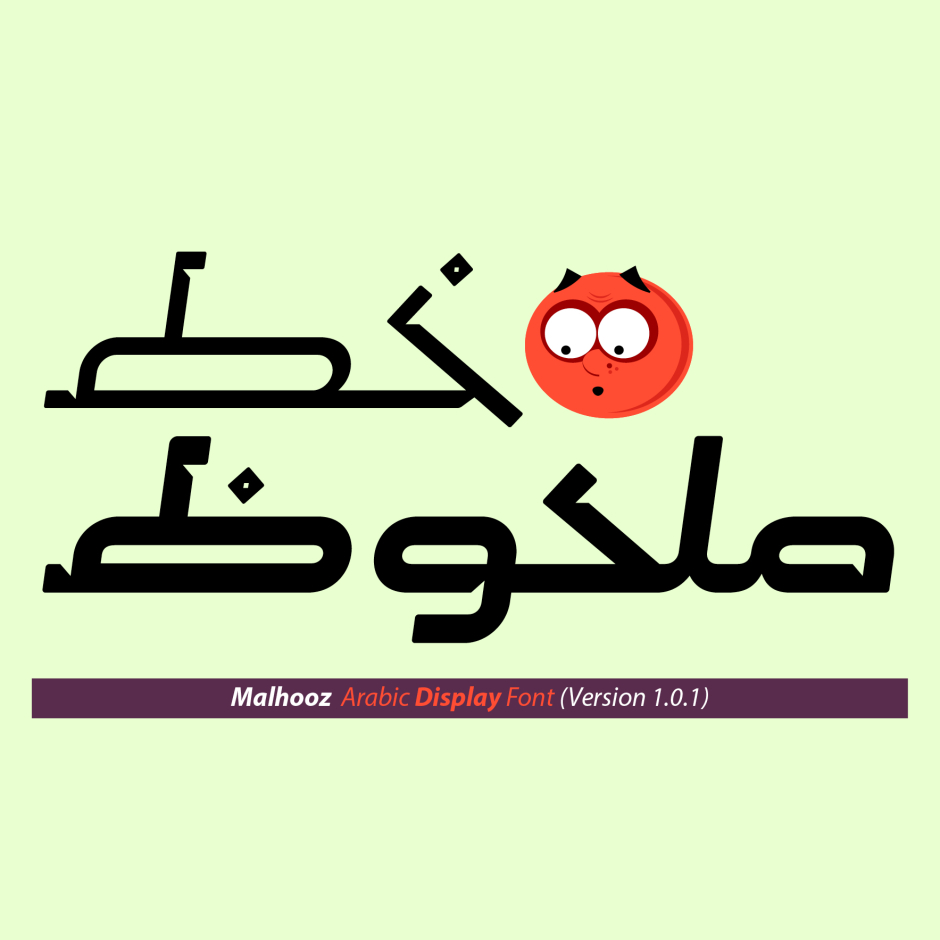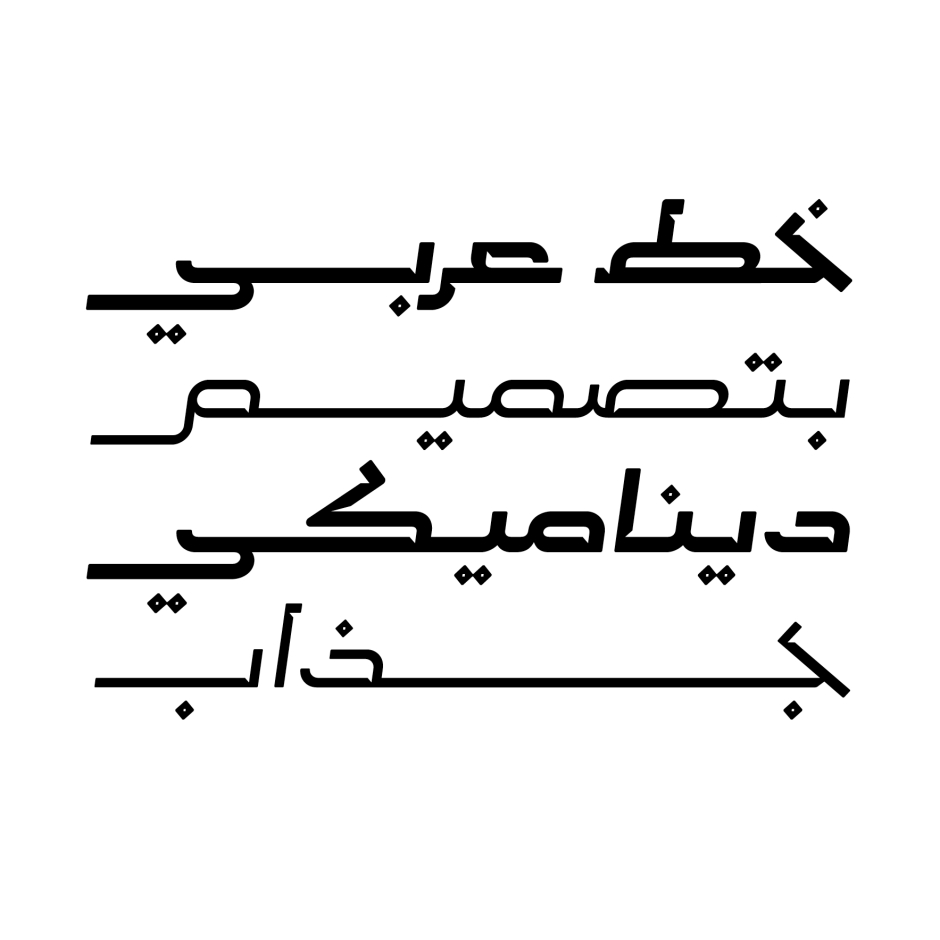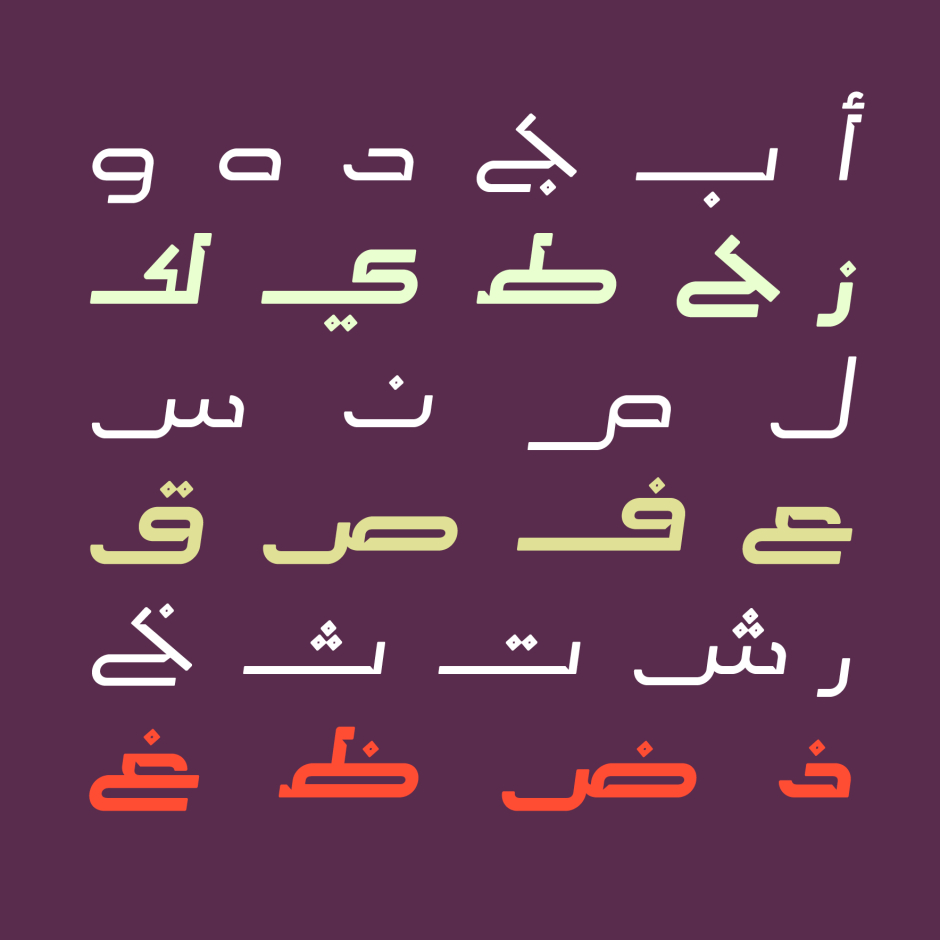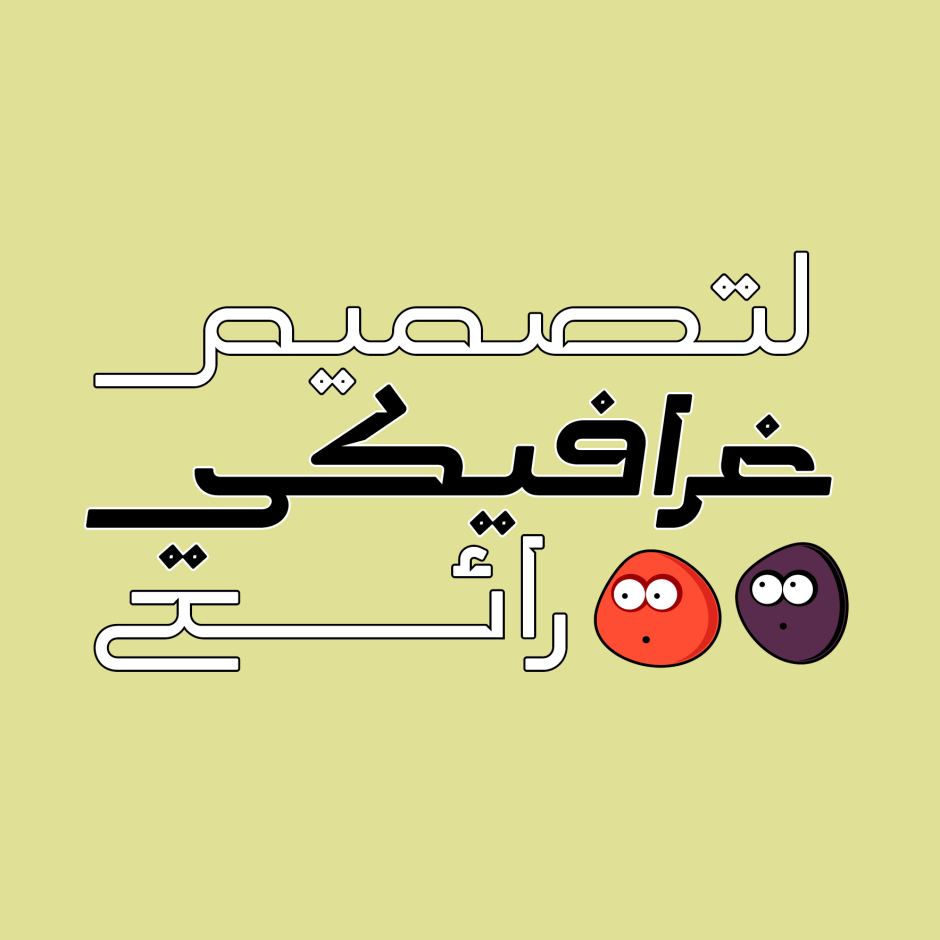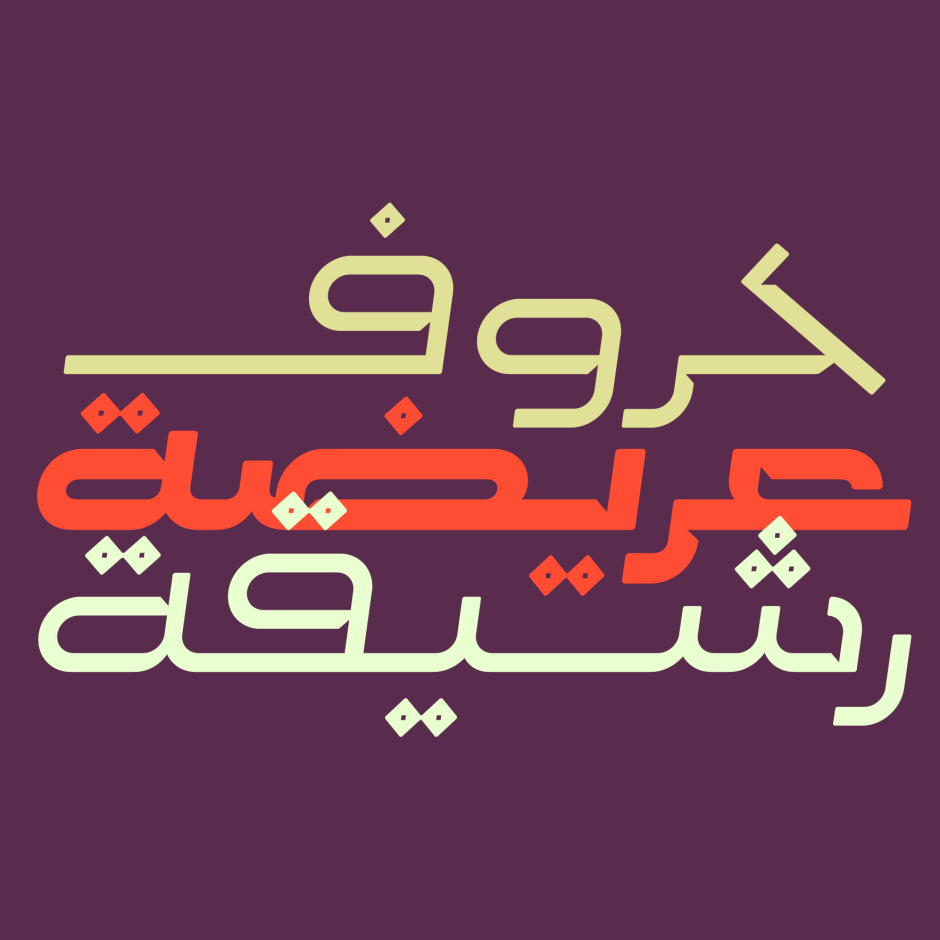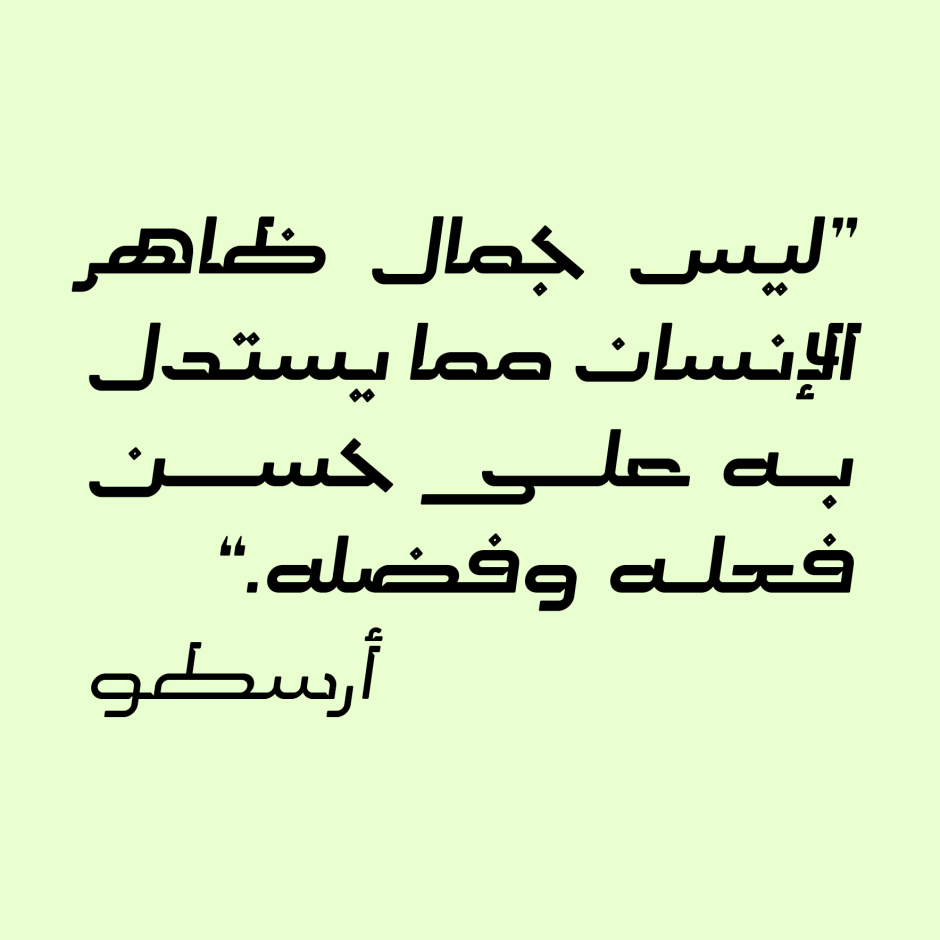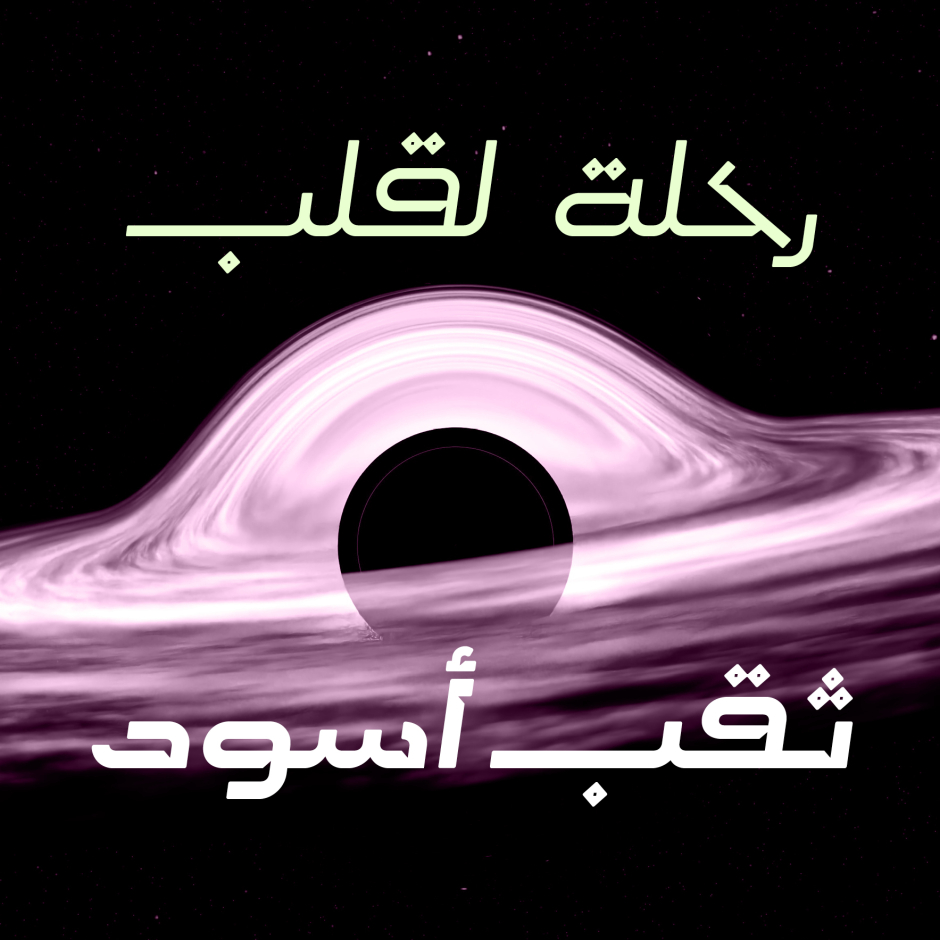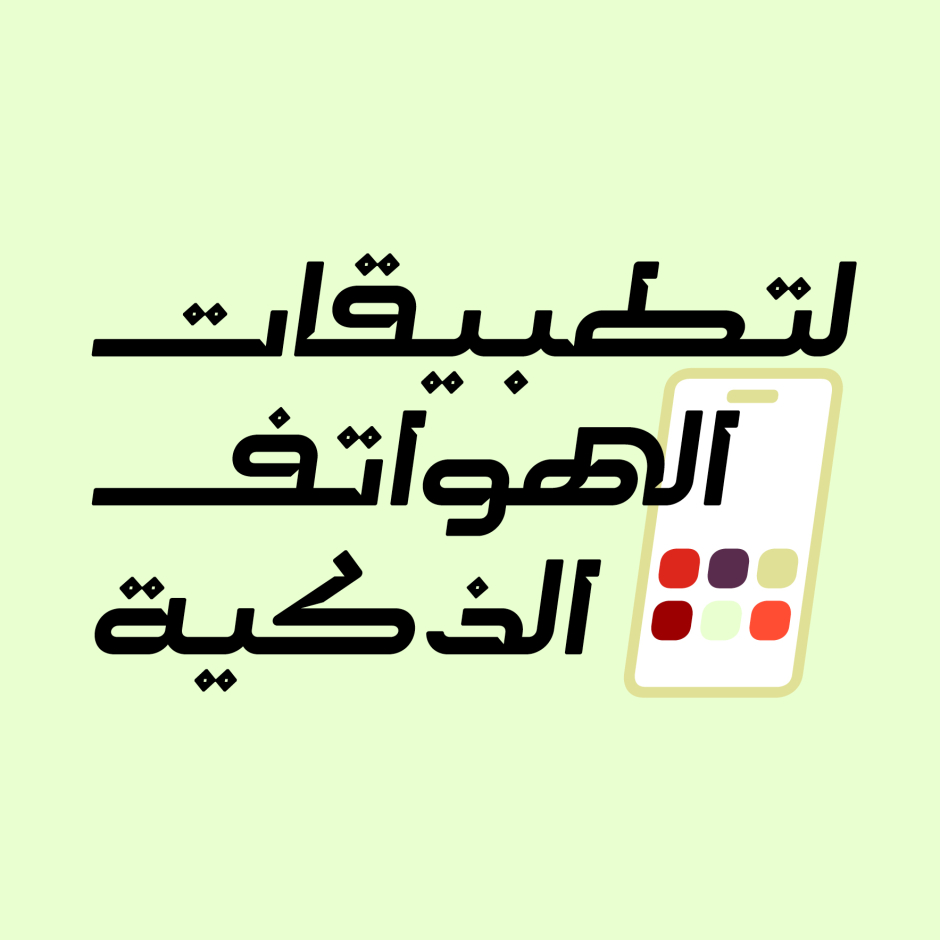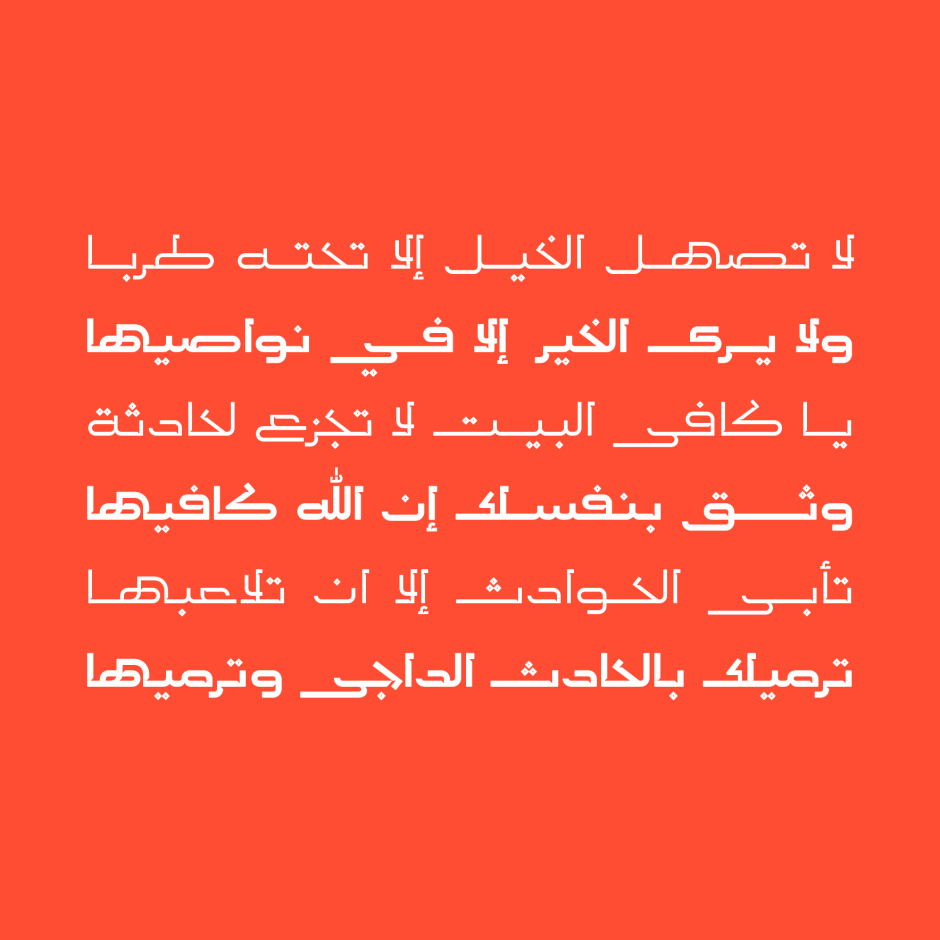
Malhooz
Malhooz (the Arabic word for 'Remarkable') is an Arabic typeface that features stretched-dynamic letterform design. Malhooz typeface consists of four font styles (Regular Bold, Oblique and Bold Oblique). It suits all modern creative projects including web, print, advertising and publication design. Malhooz supports Windows, macOS and mobile applications.